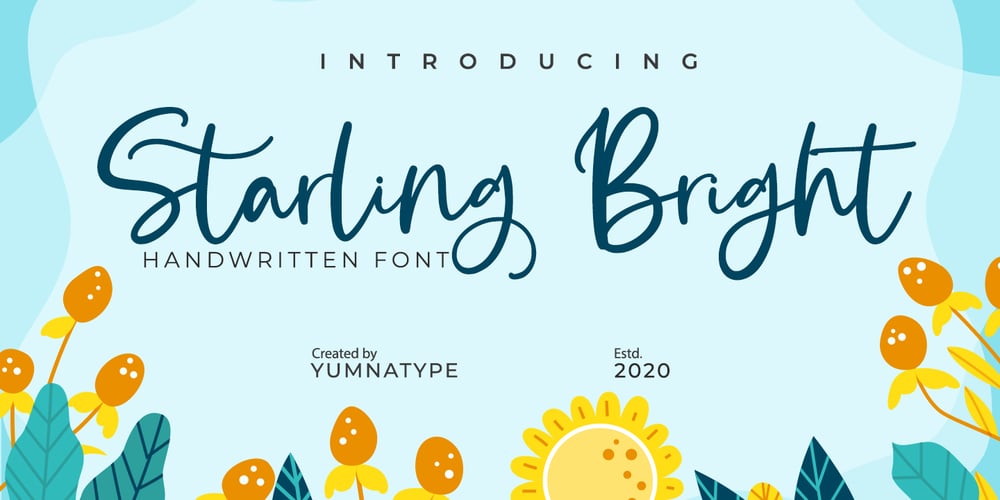
Starling Bright Font Family was designed by Donis Miftahudin and published by Yumna Type. Starling Bright contains 1 styles and family package options. Starling Bright is a elegant handwritten font with a natural and unique design will make your project more beautiful. The font is suitable for your branding project, printing, logos dan wedding.Included:Starling Bright (OTF)Features: Beautiful Ligatures Alternates Multilingual Support PUA encoded Numeral and Punctuation by Yumnatype